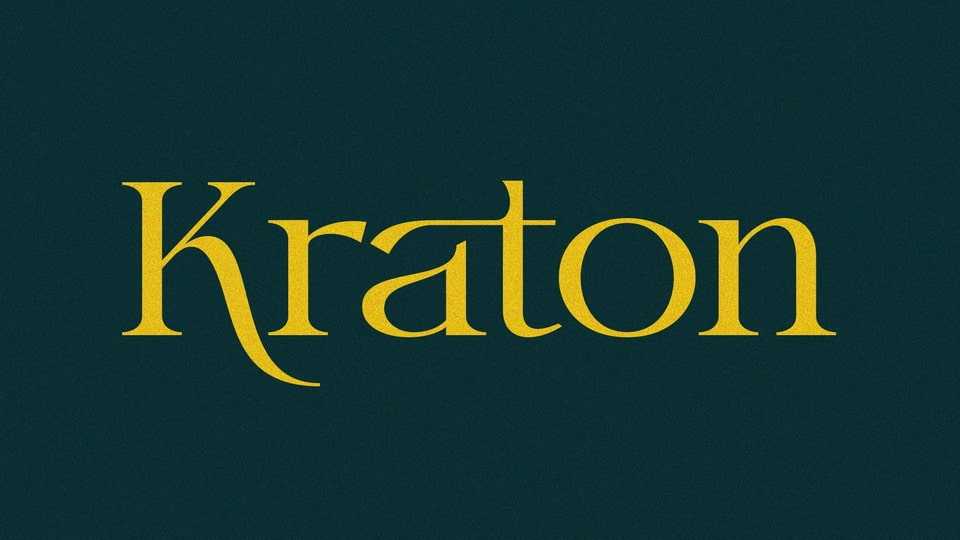
Download Kraton font, a modern and stylish serif typeface to give a different nuance to each of your products and works. Kraton font will look stunning on posters, quotes, greeting cards, logos, branding and every other design which needs a creative touch.
Designer: Dean Nugraha